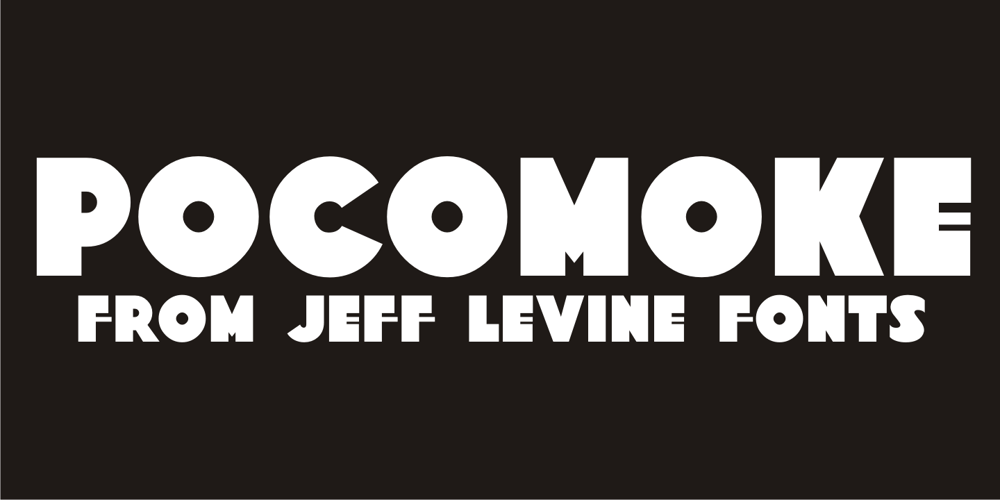
Pocomoke JNL Font Family was designed by Jeff Levine and published by Jeff Levine. Pocomoke JNL contains 1 styles and family package options. Two pieces of vintage sheet music (“Honeymoon Hotel” and “By a Waterfall”) from Warner Brothers’ 1933 musical “Footlight Parade” featured a hand-lettered bold alphabet with a touch of the 1930s Art Deco influence. These song sheets served as the basis for Pocomoke JNL. As informal and casual as the design is, its strength is in the boldness of the letter forms (which showcases the era of pen-and-ink display lettering).